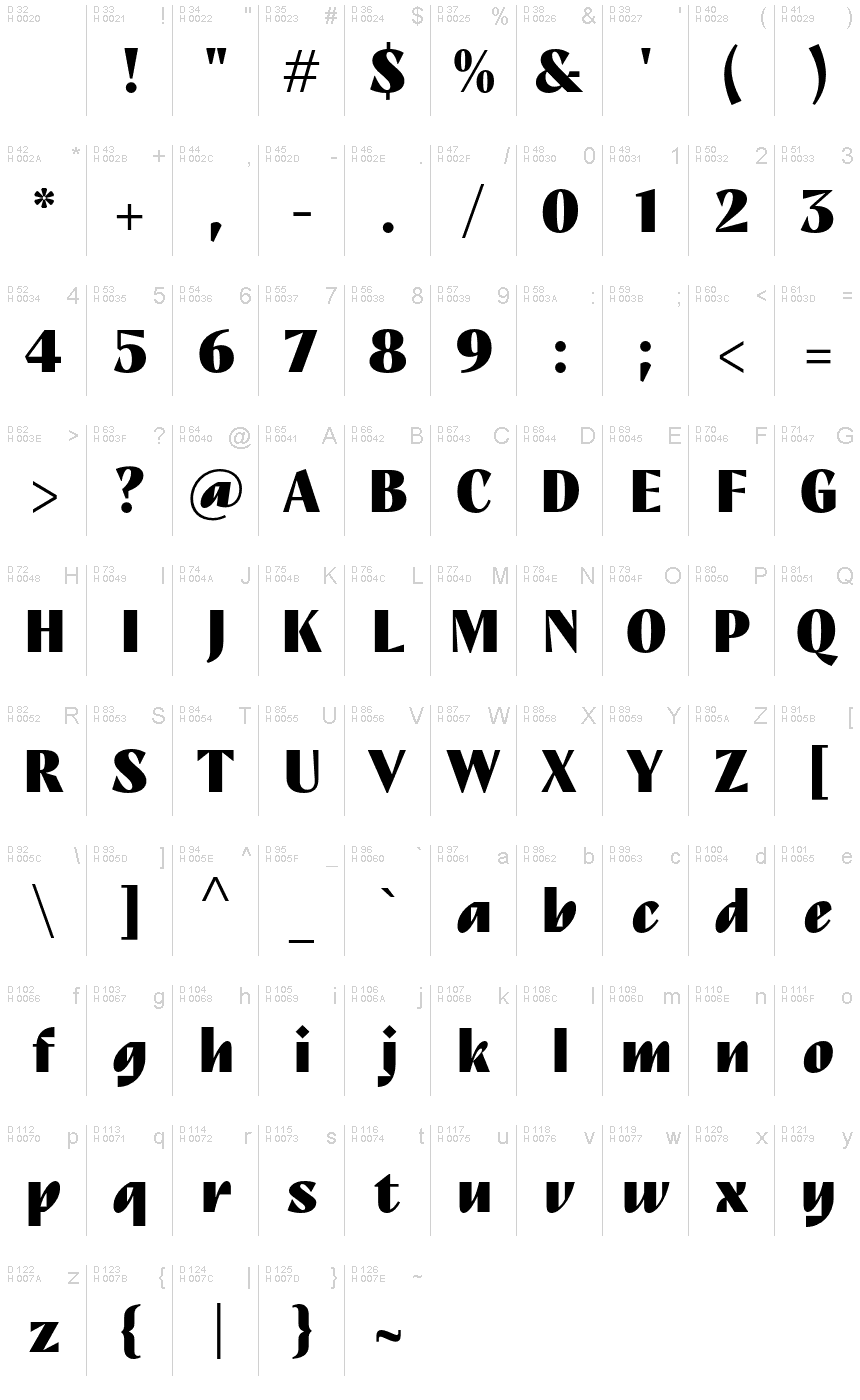
TT Nooks Script Black is the ultra-bold script font that will add a touch of elegance to any project. Designed by TypeType Foundry, this font family boasts a unique style that's perfect for branding and advertising campaigns, wedding invitations, and editorial design. The bold lines and sweeping curves of TT Nooks Script Black make it ideal for projects where you want to make a statement. Whether you're designing a logo or creating a magazine layout, this font will help your work stand out from the crowd. With its sleek and sophisticated look, TT Nooks Script Black is sure to become your go-to ultra-bold font for all your design needs.
Presentazione e campione visivo del carattere TT Nooks Script Trial Black